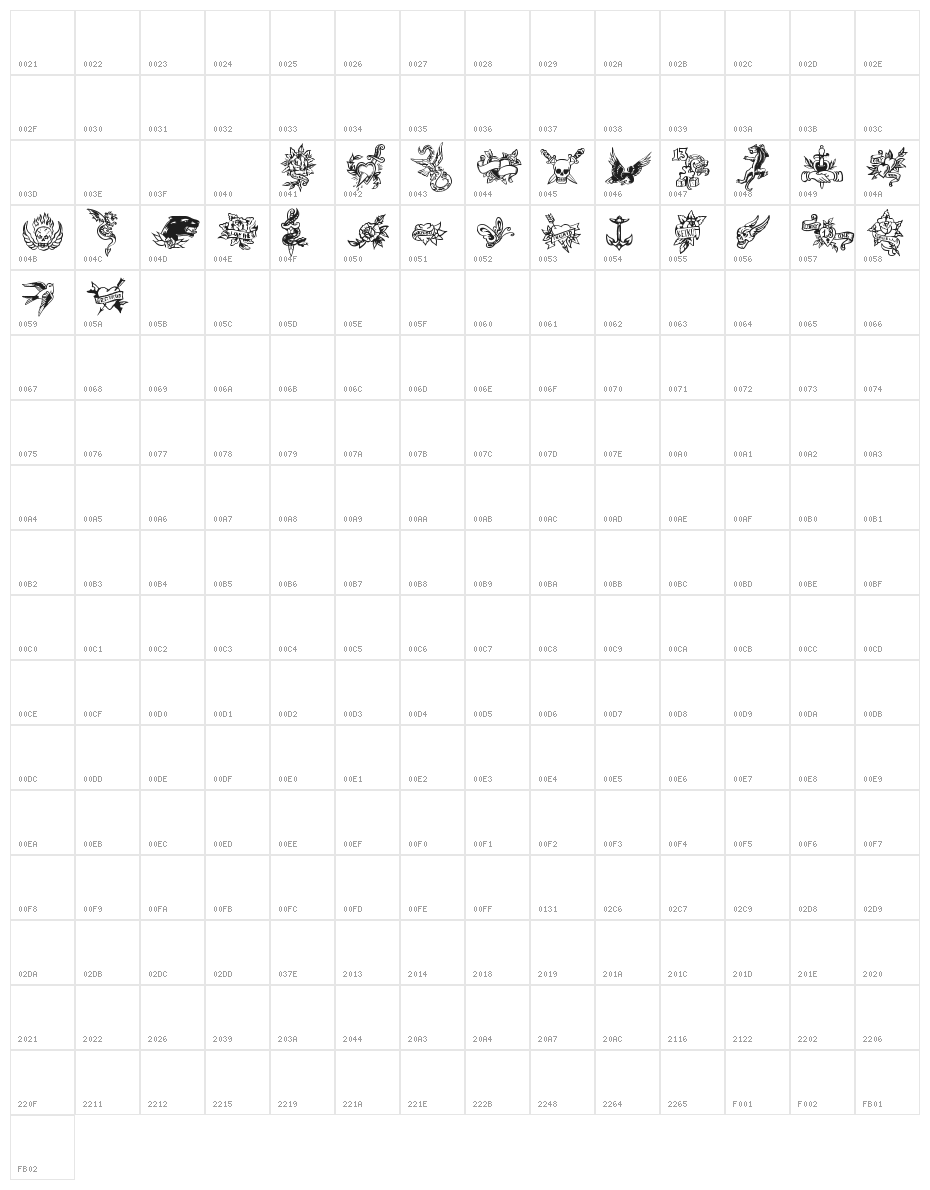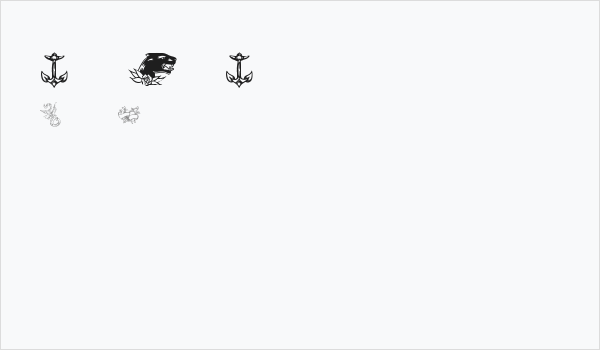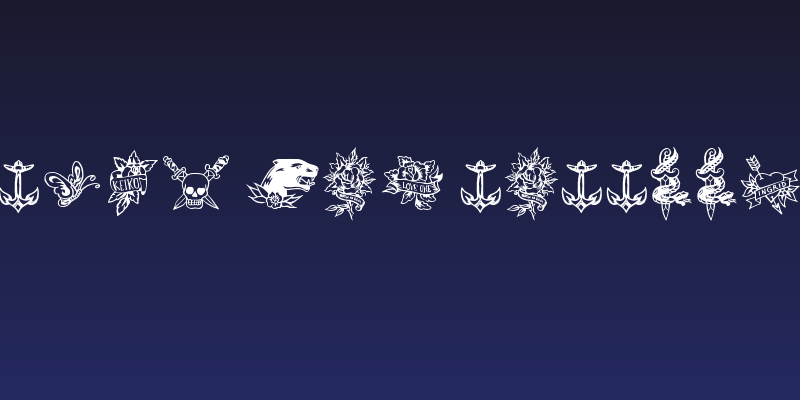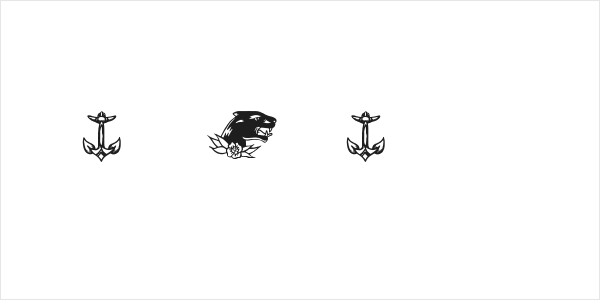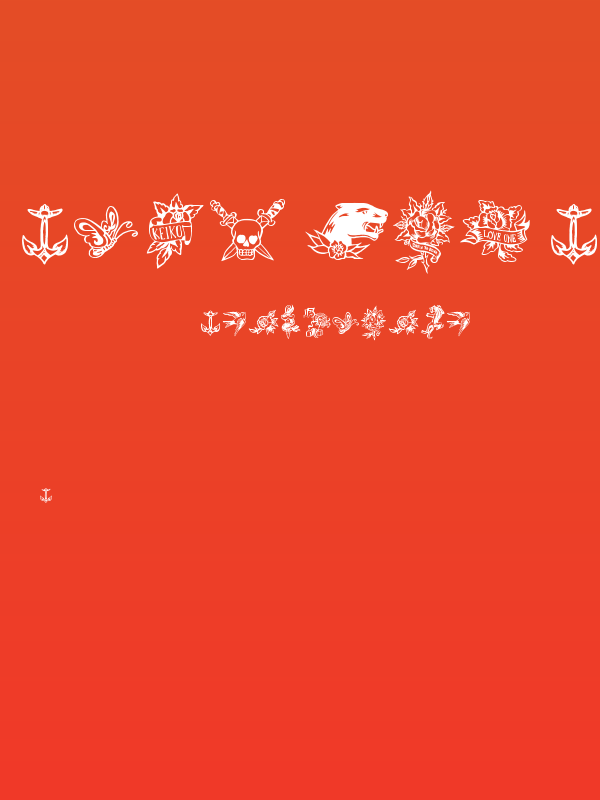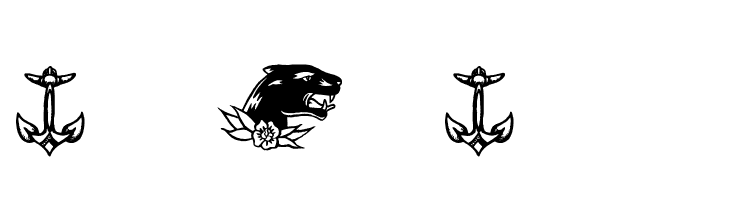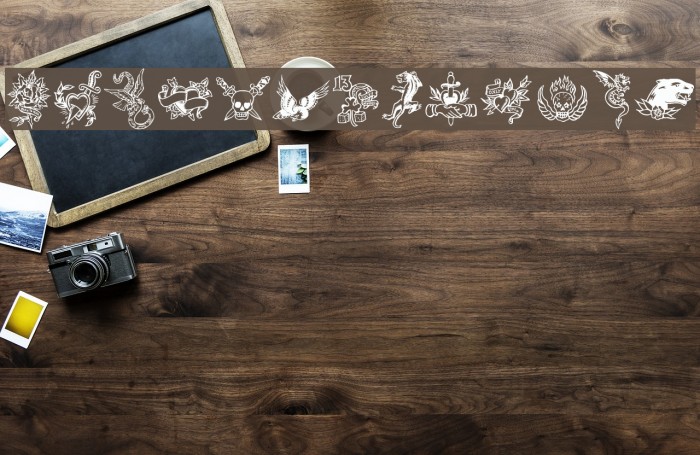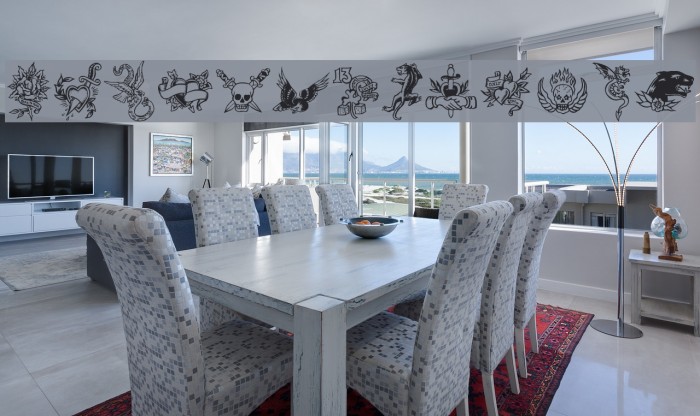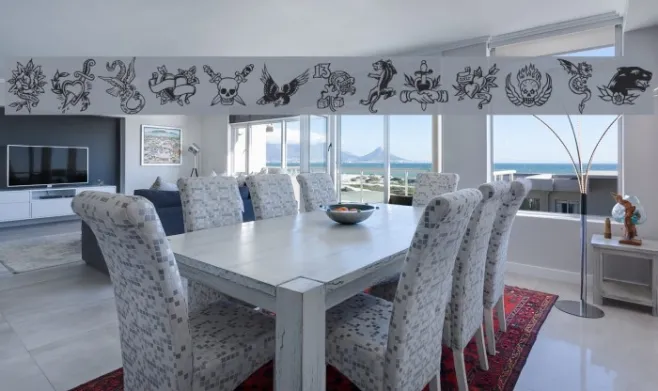
True Man Tattoos Font
True Man Tattoos Description
A decorative display set featuring classic tattoo-inspired illustrations, each glyph representing a unique traditional tattoo motif such as hearts, banners, skulls, anchors, and animals, rendered in bold, hand-drawn black outlines with intricate detailing.
| Overall Style | Vintage, Decorative |
| Use Case | Logos, Posters, Merchandise, Themed Graphics |
| Proposed Projects | Tattoo shop branding, poster art, apparel graphics, stickers, themed event materials. |